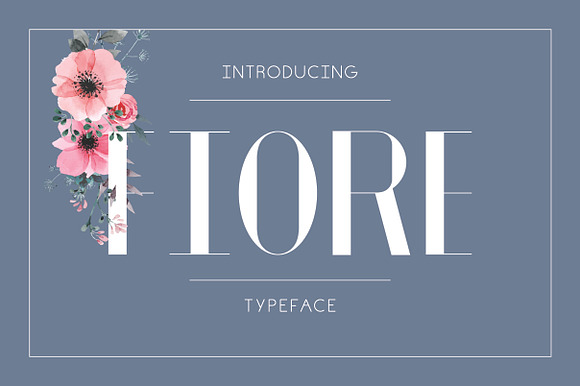
Fiore Typeface
Fiore is a quaint elegant typeface. Works great for wedding stationary and monogram logos, and pairs well with simple sans serif typefaces. Enjoy!